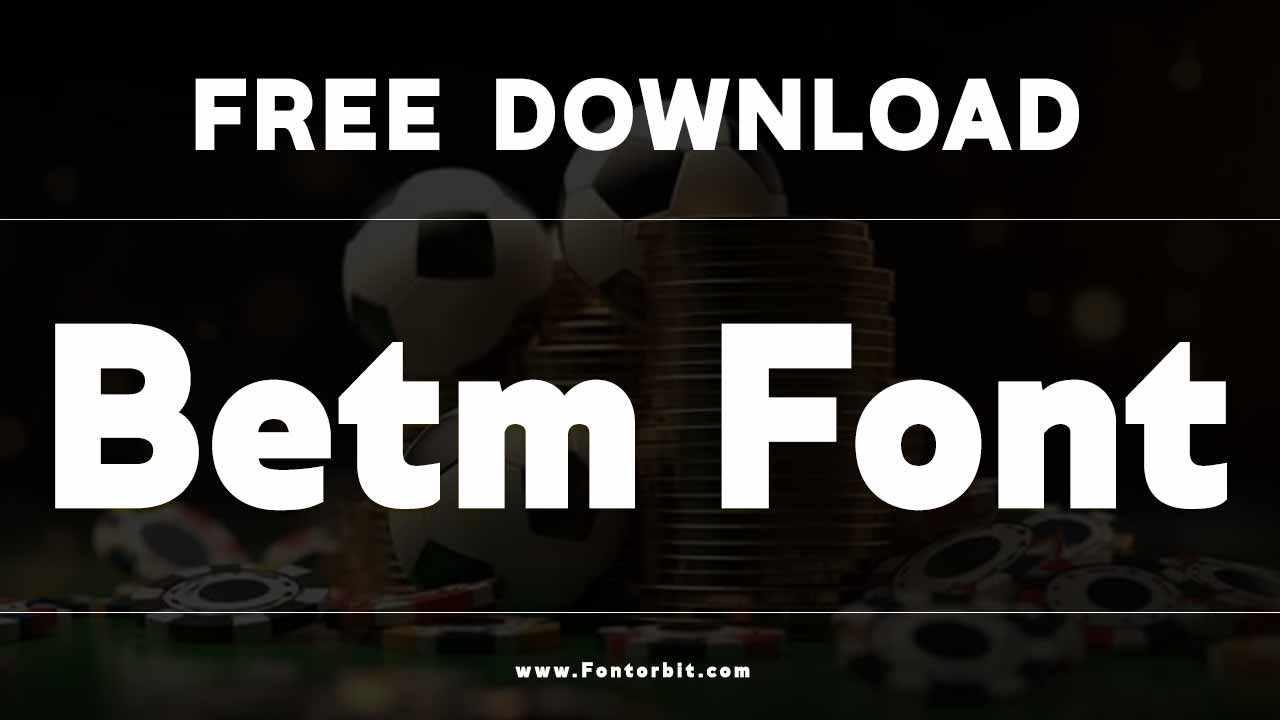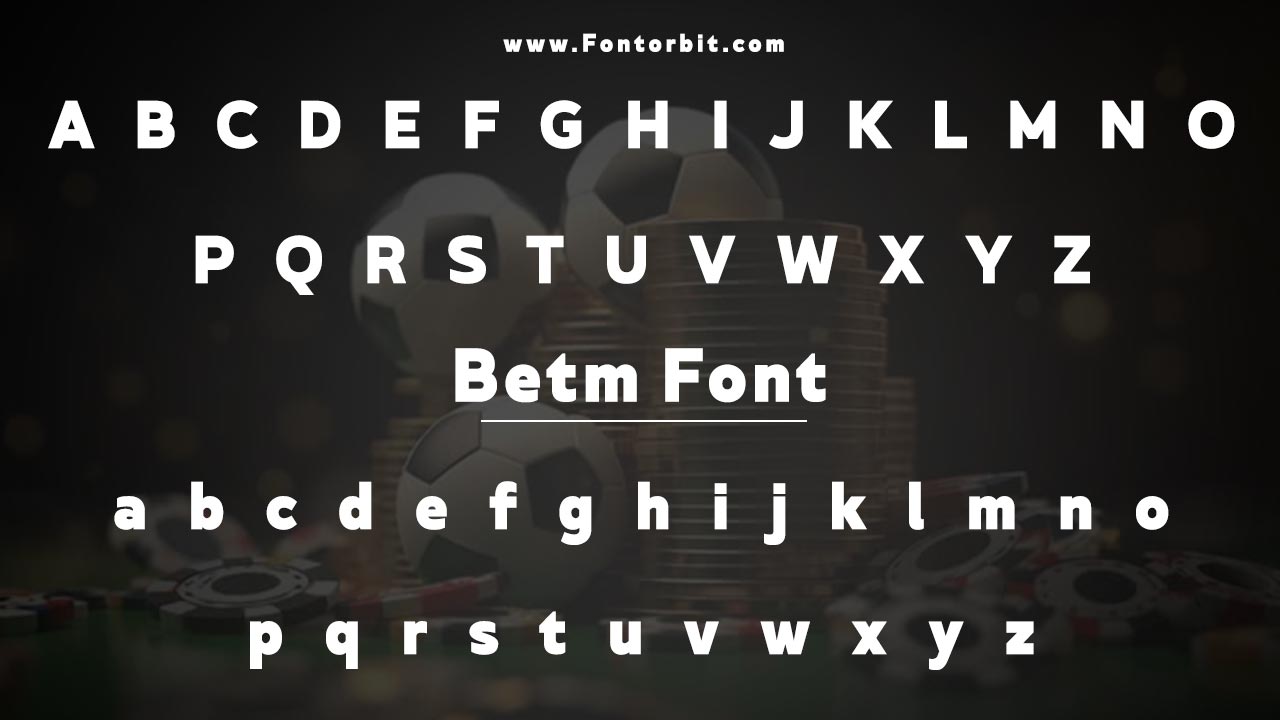
Betm Font, designed by Chatnarong Jingsuphatada, is a versatile sans-serif font known for its clean, geometric design. Published by Typesketchbook, this font family offers multiple weights and styles, making it ideal for logos, branding, web design, and advertisements. Whether you need a bold headline or a refined body text, Betm provides excellent readability and aesthetic appeal.
Betm Font Family Styles
Betm comes in a wide variety of styles, making it a great option for diverse design needs:
- Betm Thin
- Betm Thin Italic
- Betm ExtraLight
- Betm ExtraLight Italic
- Betm Light
- Betm Light Italic
- Betm SemiLight
- Betm SemiLight Italic
- Betm Regular
- Betm Italic
- Betm Medium
- Betm Medium Italic
- Betm SemiBold
- Betm SemiBold Italic
- Betm Bold
- Betm Bold Italic
- Betm Black
- Betm Black Italic
- Betm ExtraBlack
- Betm ExtraBlack Italic
Key Features Of Betm Font
- Clean and modern geometric design
- Includes 10 italic options for creative flexibility
- Perfect for logos, branding, digital ads, and websites
- Supports multiple languages, including Greek
- Comes in bold, light, rounded, and extra-black styles
- Available in bitmap format for digital applications
Betm Font Usage Chart
| Use Case | Recommended Style |
| Logo Design | Betm Bold, Betm Black |
| Website Headings | Betm Medium, Betm SemiBold |
| Body Text | Betm Light, Betm Regular |
| Advertising | Betm ExtraBlack, Betm Italic |
| Social Media Ads | Betm Rounded, Betm Book |
Betm Font helps create a strong brand identity in logos and branding. It enhances readability on websites and UI/UX designs across all devices. Its sleek style boosts visual appeal in social media graphics and digital ads. It adds a professional touch to magazines and editorials. It delivers a polished and impactful look in brochures and posters.
1.What Styles Are Available In The Betm Font Family?
Answer: Betm includes multiple styles, such as Betm Light, Betm Medium, Betm Bold, Betm Black, Betm ExtraBlack, Betm Rounded, and more.
2.Who Designed Betm Font?
Answer: Betm was designed by Chatnarong Jingsuphatada, a talented Thai type designer.
4.Does Betm Font Support Multiple Languages?
Answer: Yes, it supports Greek and various other international languages.